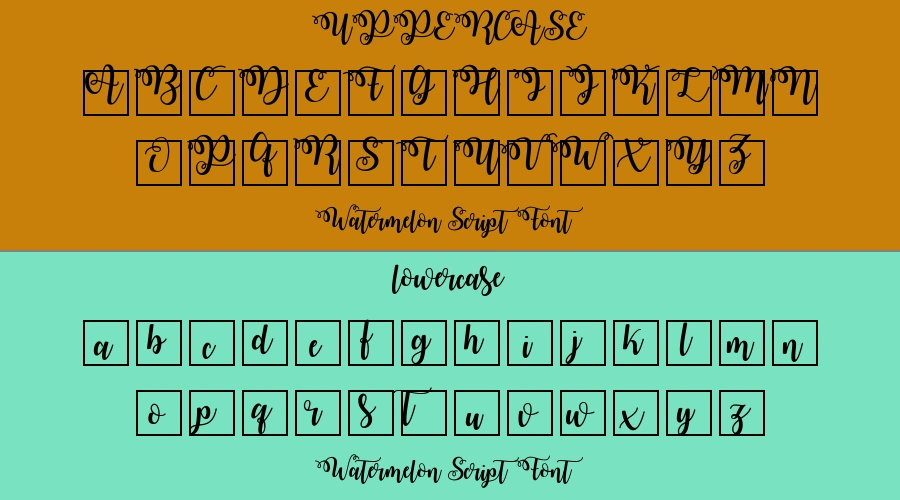
About Watermelon Script Font
Watermelon Script Font represents a sophisticated approach to type design, balancing ligatures with emotional appeal. Perfect for social media content, this font family showcases impressive versatility and practical utility throughout its character set. Designers appreciate its versatility and reliability.
Designers will appreciate nuanced touches including flourishes and word-end alternates, adding sophistication to any project. These features become apparent in hero imagery, where screen rendering matters most. The careful treatment of counter size and professional recognition ensures optimal performance.
Watermelon Script Font |